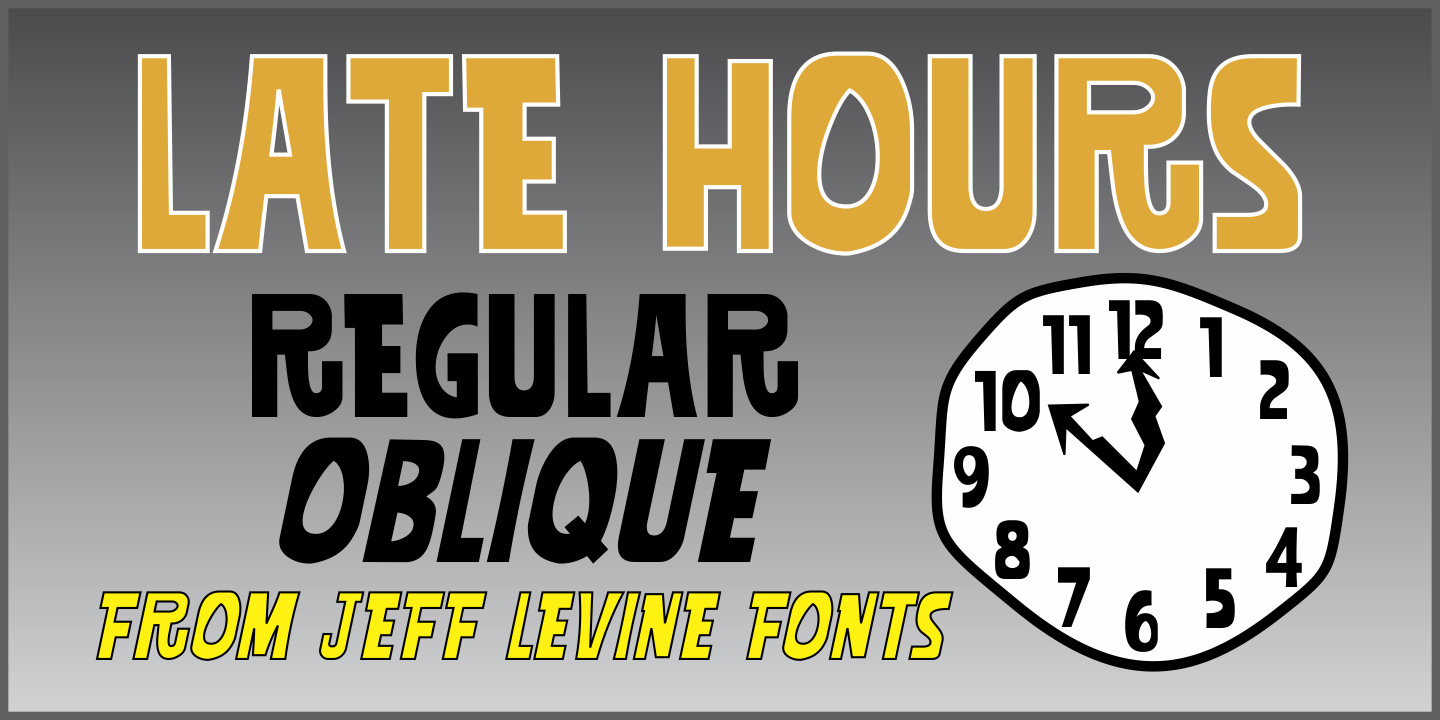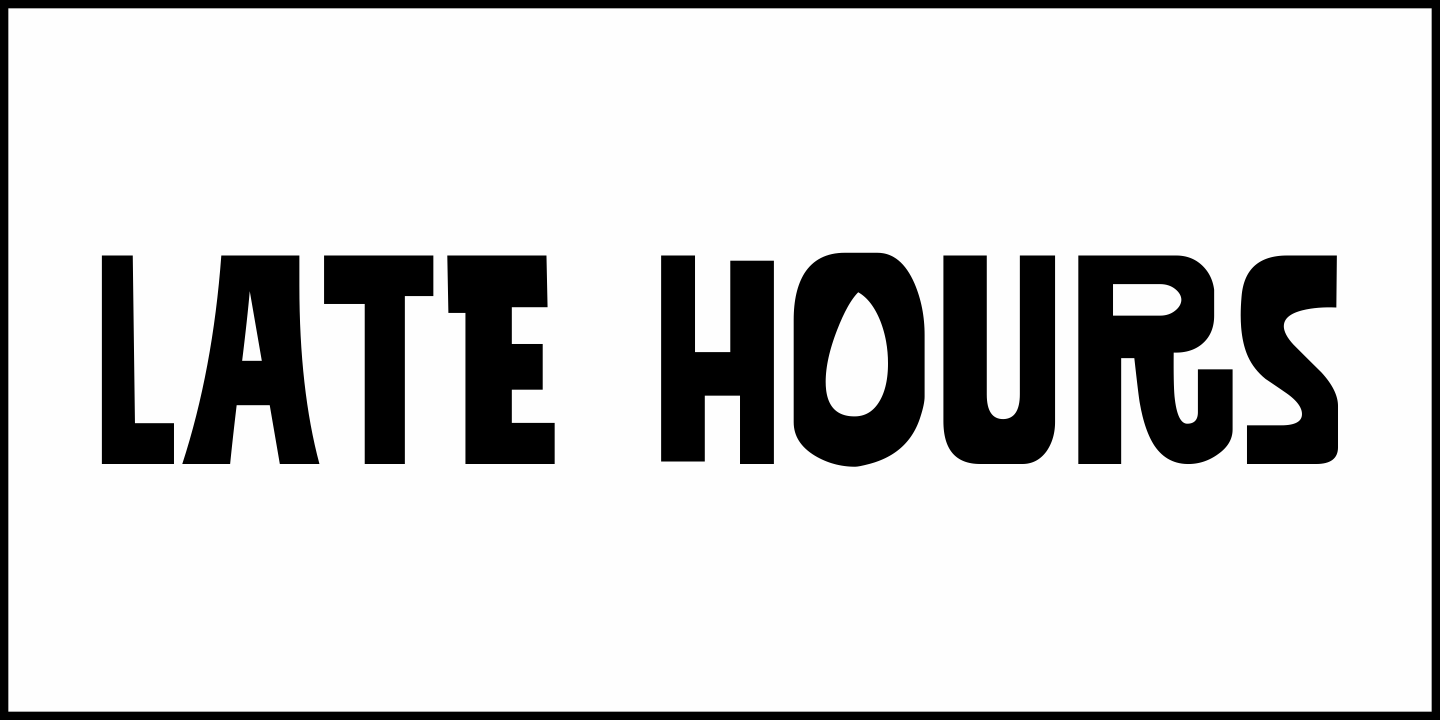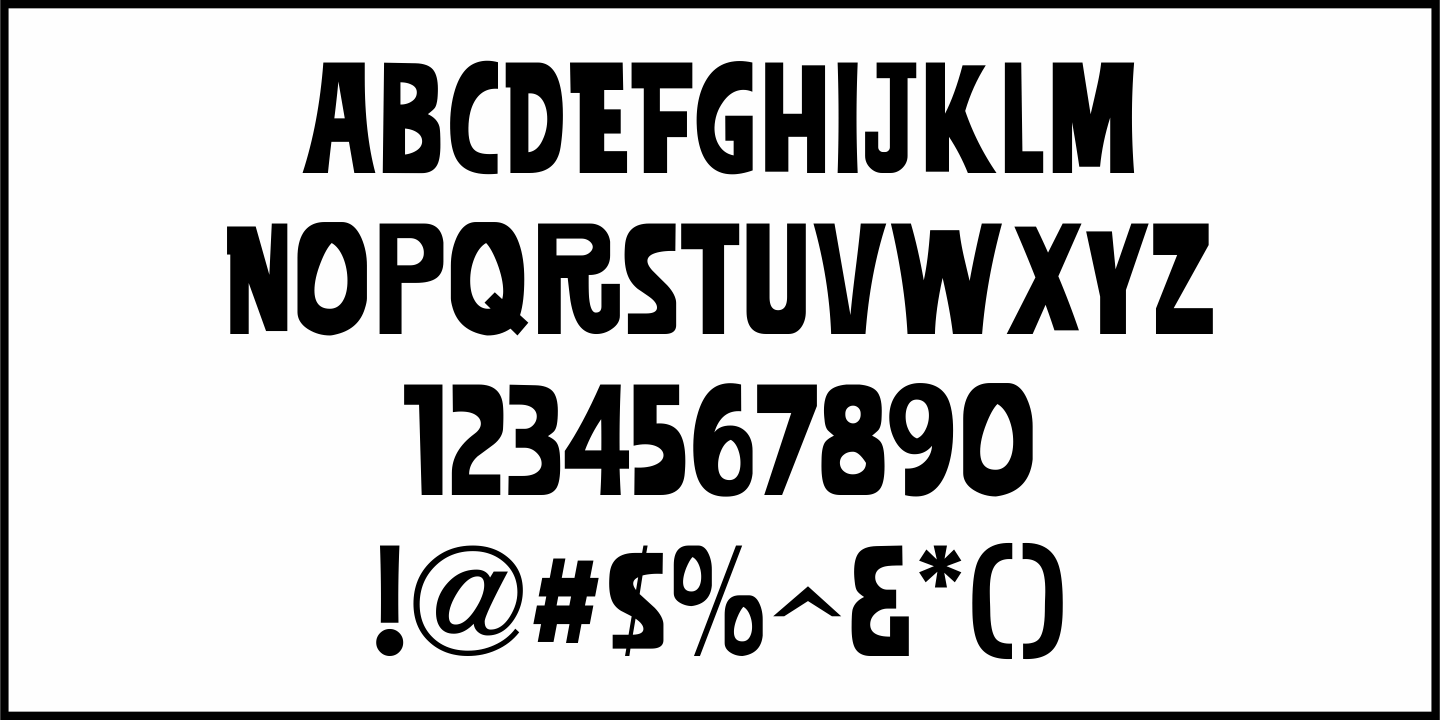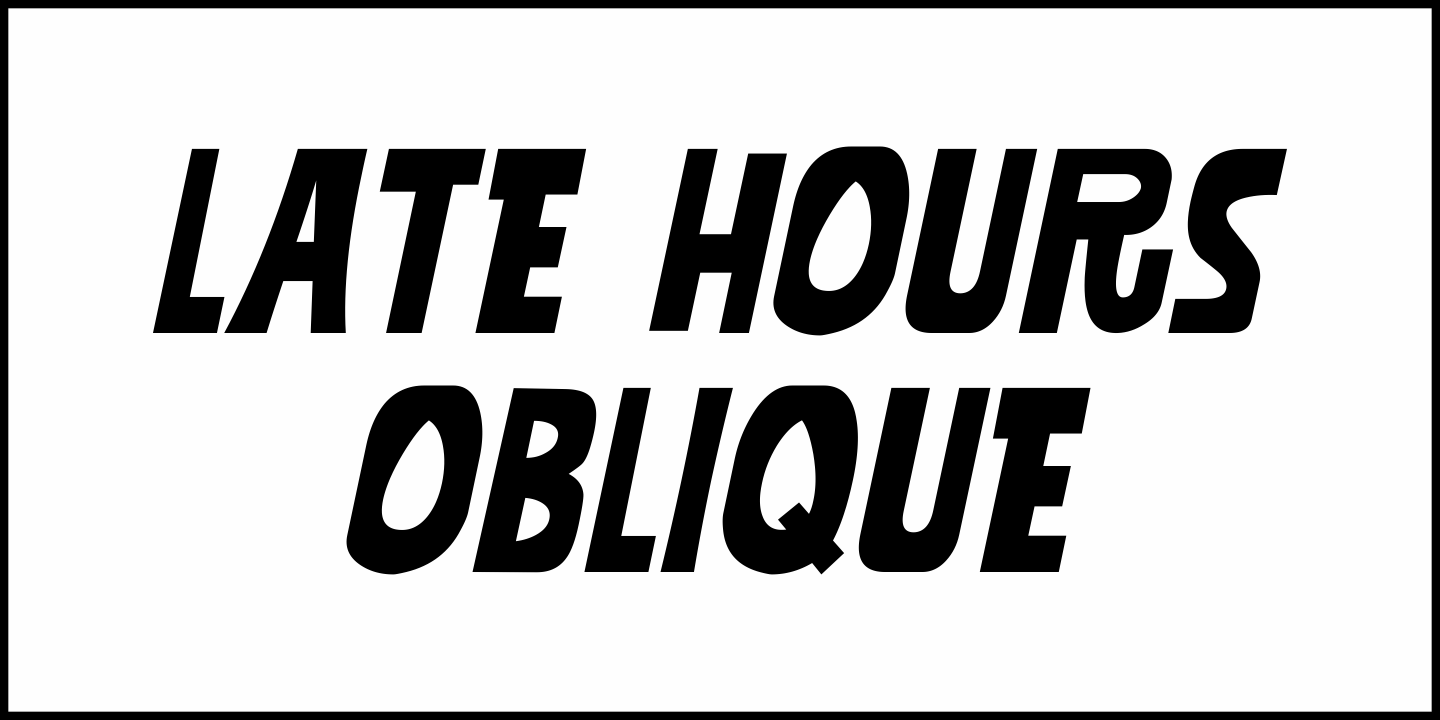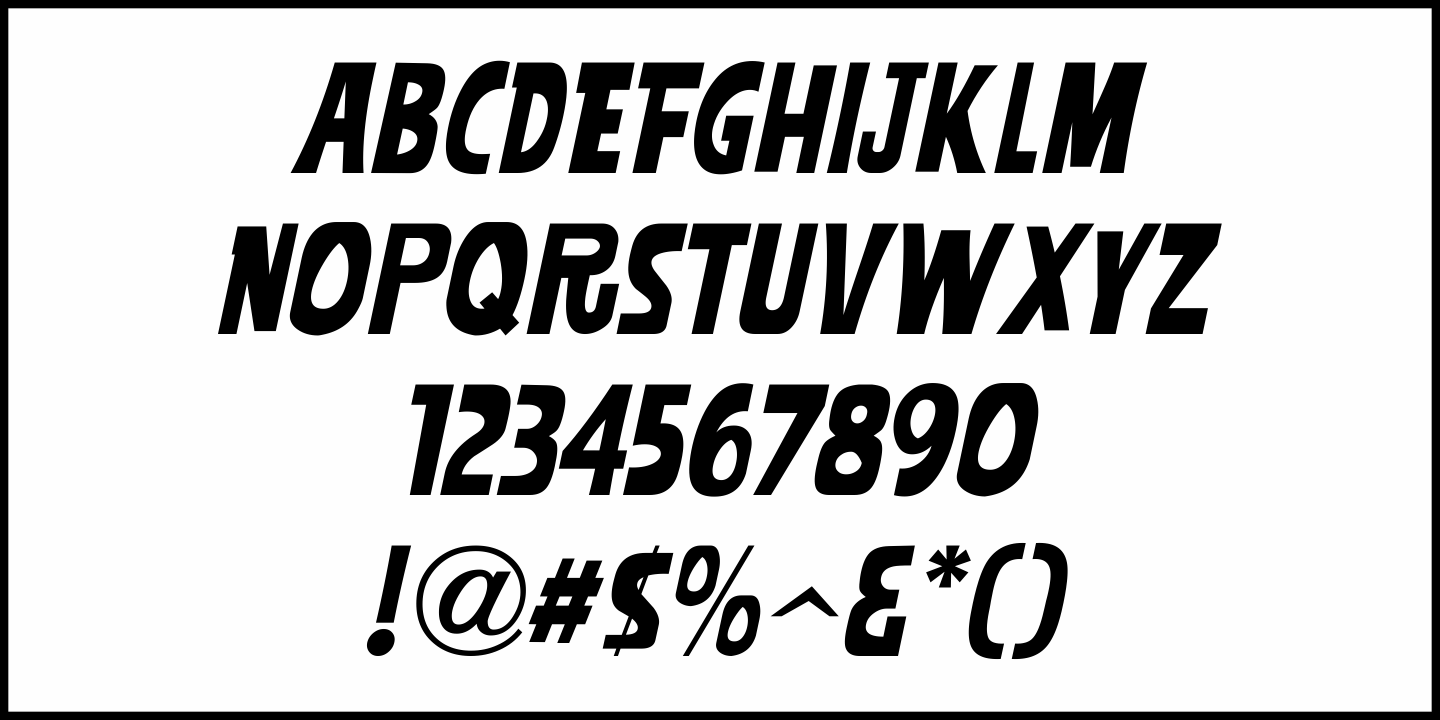
Late Hours
The free form hand lettered titles for the 1961 film 'The Children's Hour” inspired the digital typeface Late Hours JNL, which is available in both regular and oblique versions.